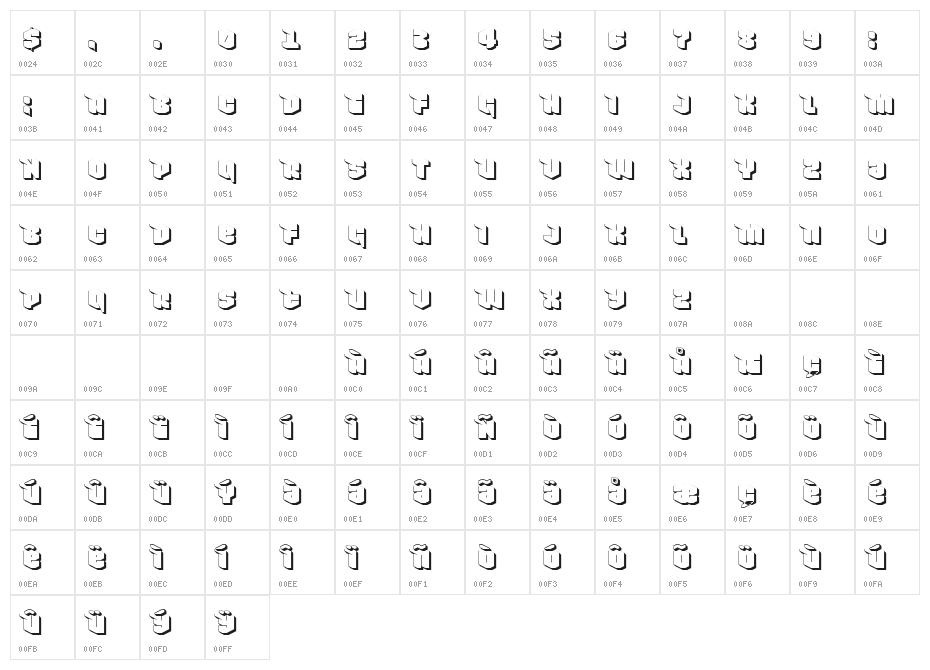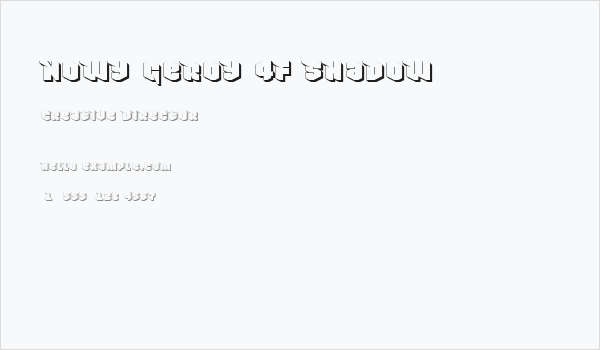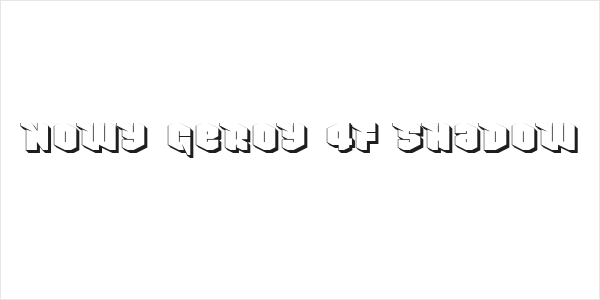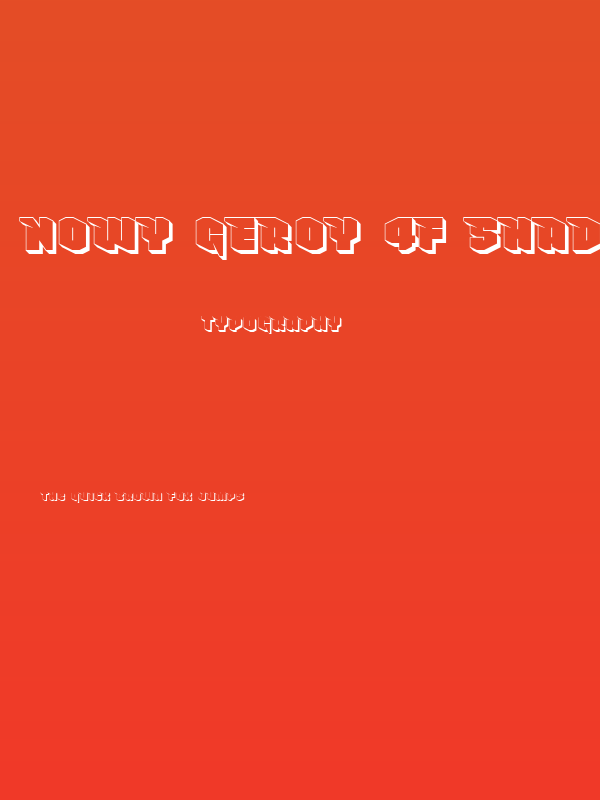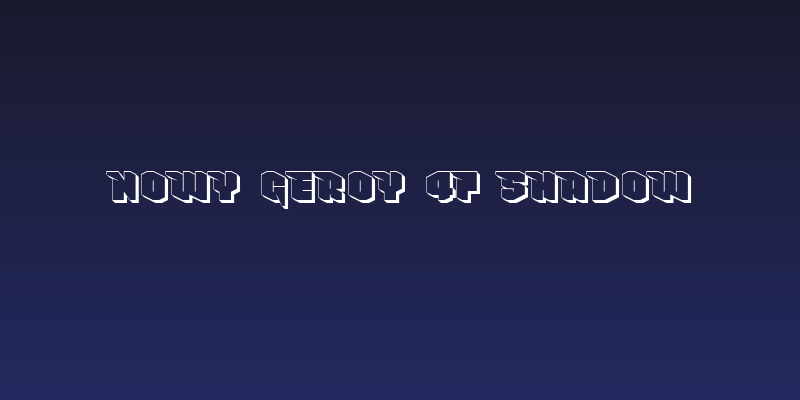
Nowy Geroy 4F Shadow Font
Nowy Geroy 4F Shadow Description
This font features a bold and striking 3D shadow effect, giving each character a sense of depth and dimension. The letters are blocky and geometric, with sharp angles and clean lines that create a modern and dynamic appearance. The shadow effect is consistent across all characters, enhancing the boldness and making the text stand out prominently. This style is particularly eye-catching and suitable for designs that require a strong visual impact.
| Proposed Projects | Ideal for posters, headlines, logos, and any design needing a strong, impactful visual element. |